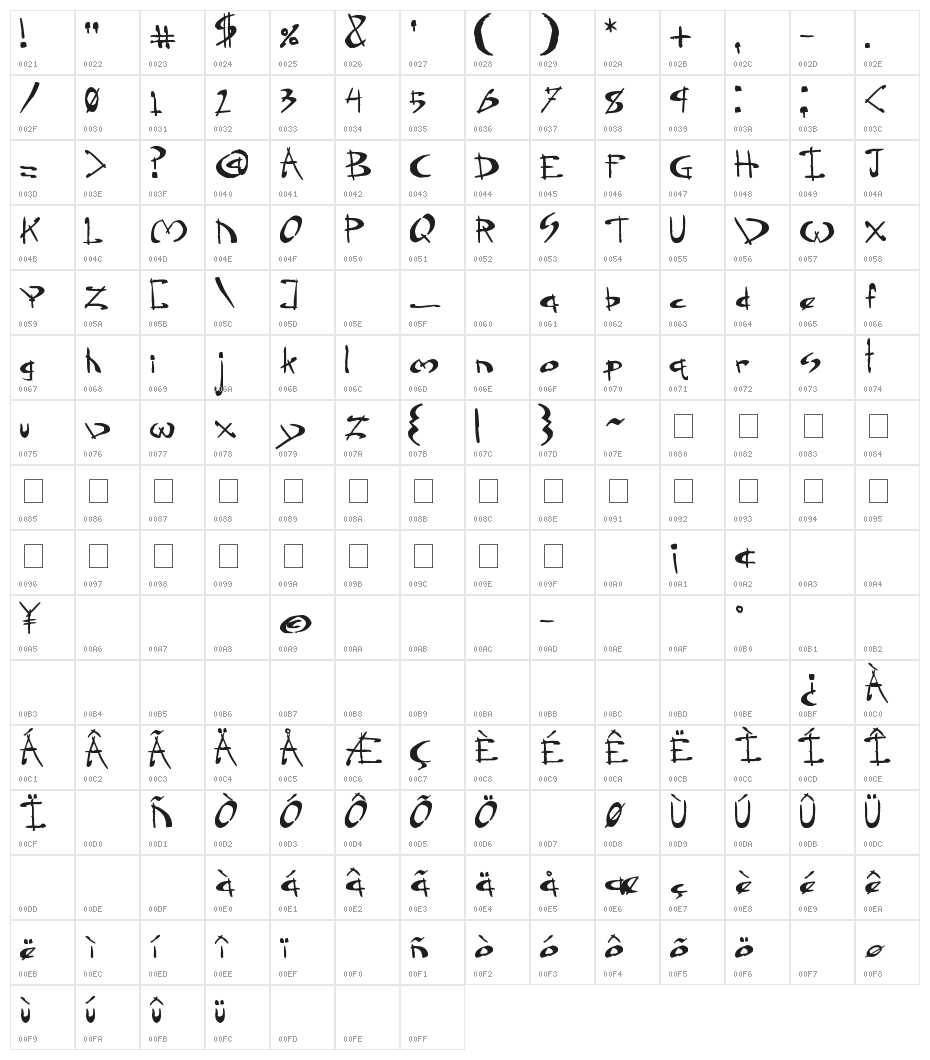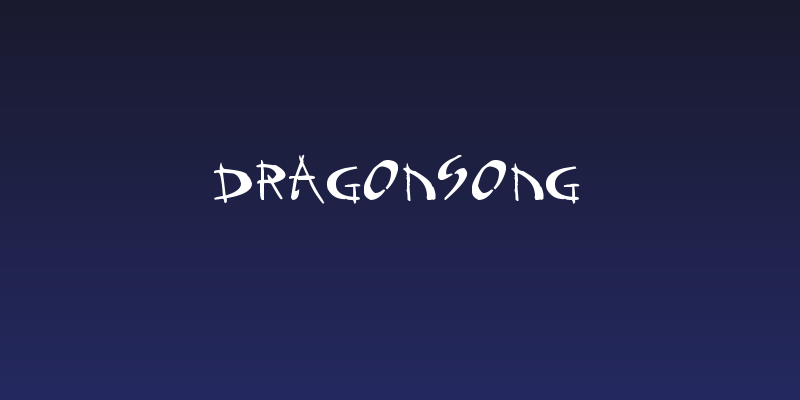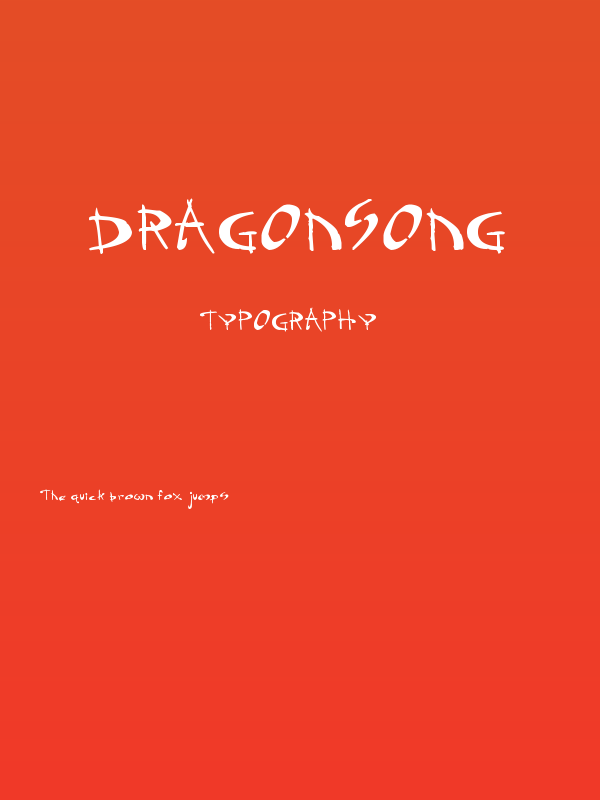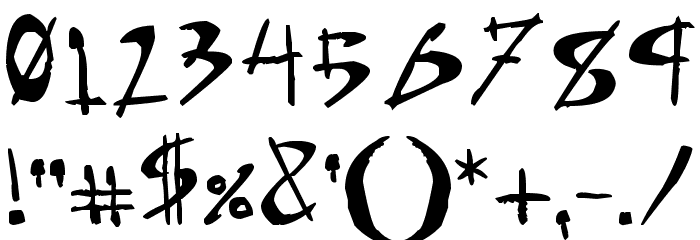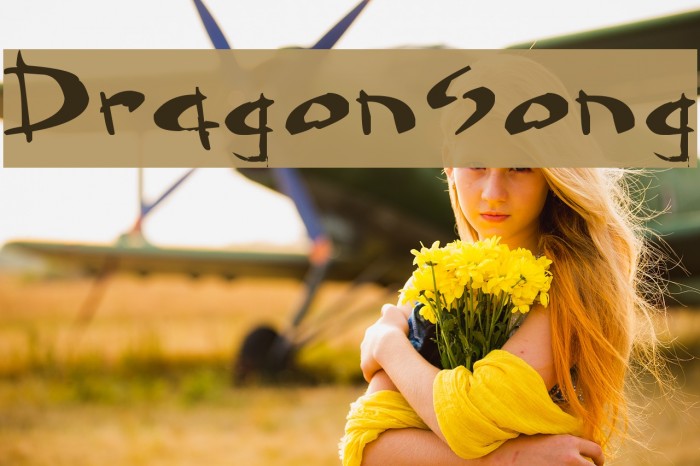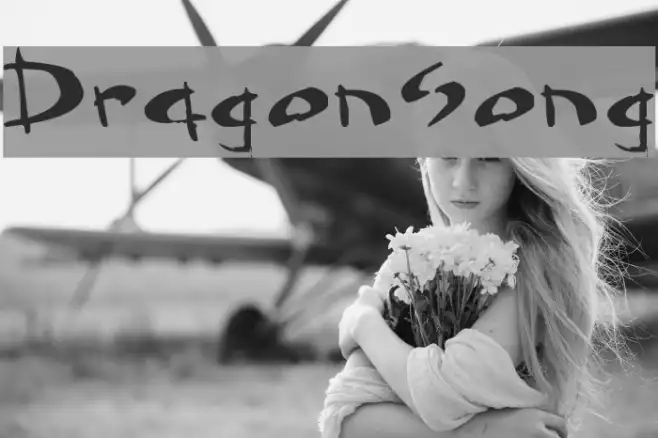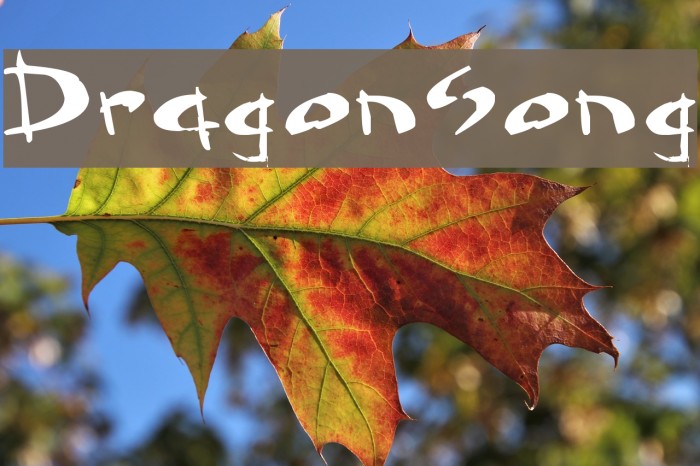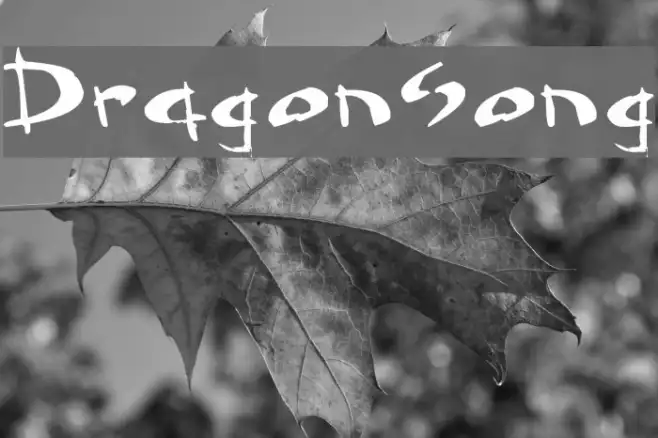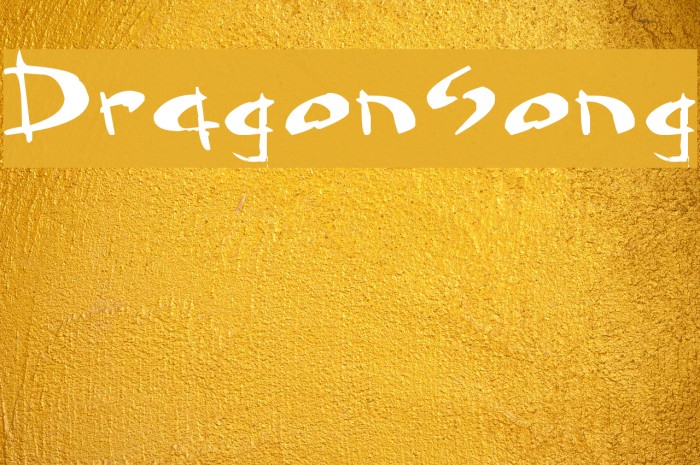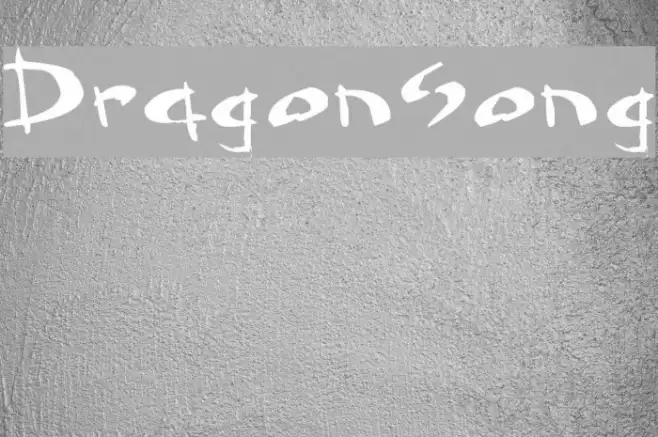
Dragonsong Font
Dragonsong Description
This font features a unique, hand-drawn style with an artistic flair. The characters are irregular and dynamic, with strokes that vary in thickness, giving it a lively and expressive appearance. The uppercase letters are bold and striking, while the lowercase letters maintain a playful yet coherent style. Numbers and special characters follow the same artistic theme, making the font suitable for creative and unconventional projects. The overall design is reminiscent of calligraphy with a modern twist, making it ideal for capturing attention and conveying a sense of creativity and individuality.
| Overall Style | Modern, Artistic |
| Use Case | Headlines, Logos, Artistic projects |
| Proposed Projects | Ideal for creative projects such as posters, album covers, and artistic branding. |